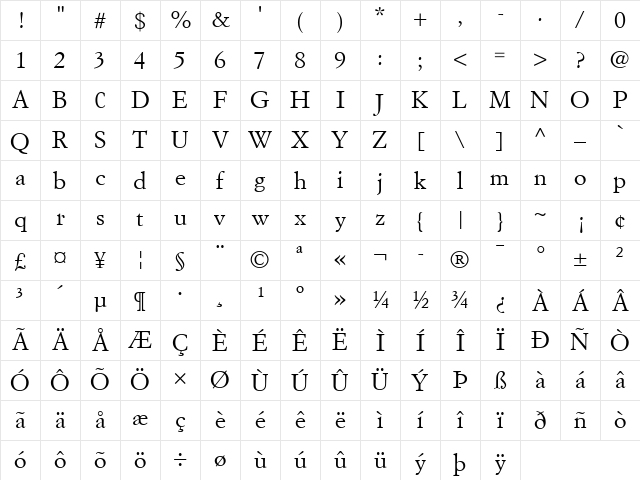
SimonciniGaramond LT is a composed and adaptable typeface that performs quietly and consistently across a wide range of design contexts. Its slender proportions lend an understated elegance to any composition.